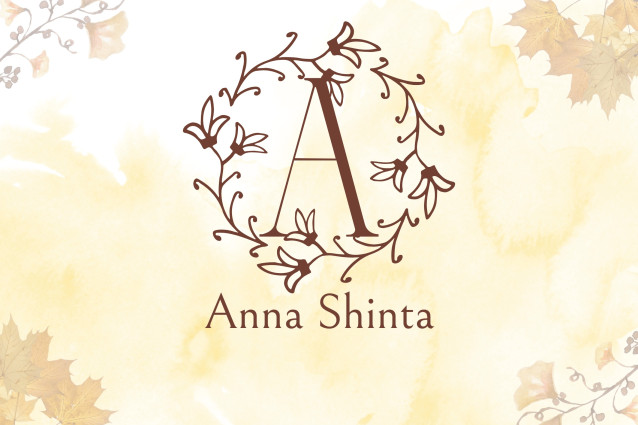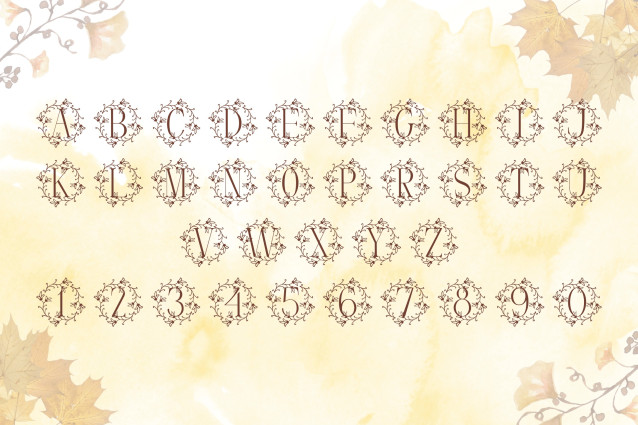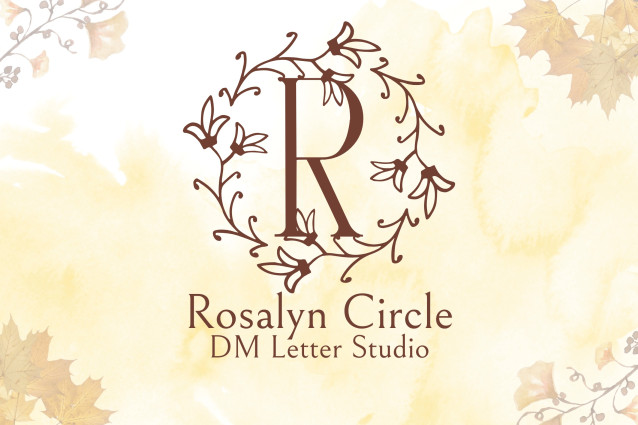
Rosalyn Circle Monogram Font
Rosalyn Circle Monogram Font is a graceful serif monogram font enclosed within a delicate circular floral frame. Inspired by timeless elegance and soft botanical themes, each uppercase letter is placed inside a refined wreath of roses and foliage, making it the perfect choice for wedding monograms, luxury branding, and personalized gifts.